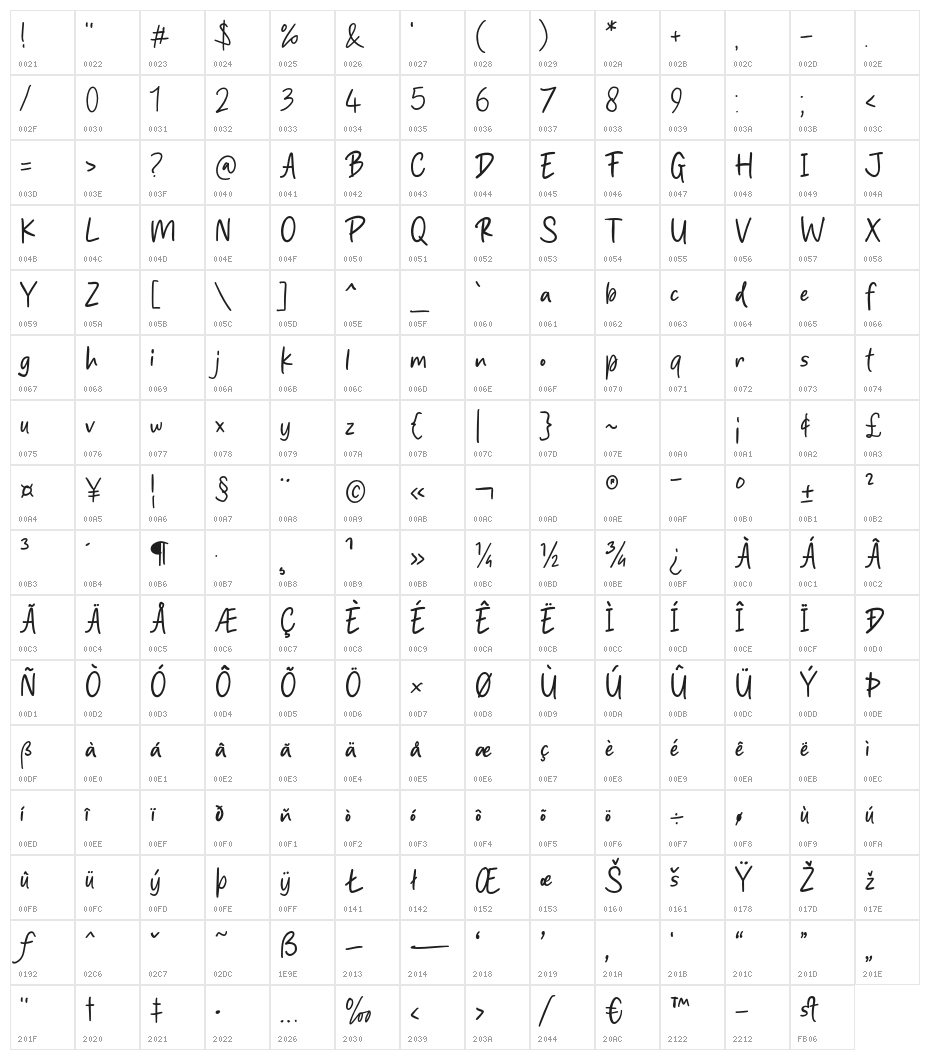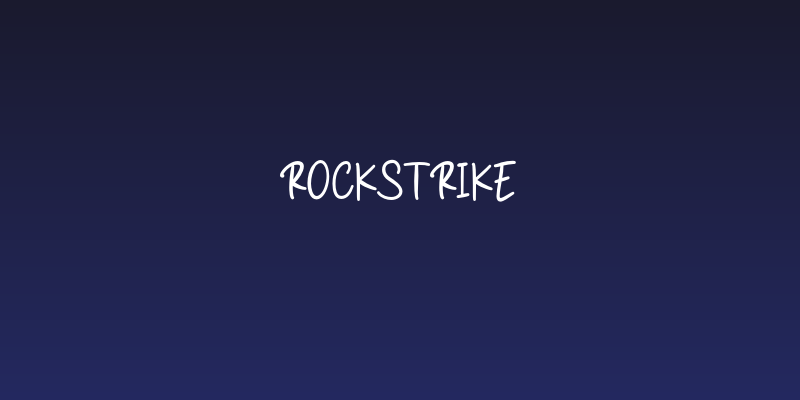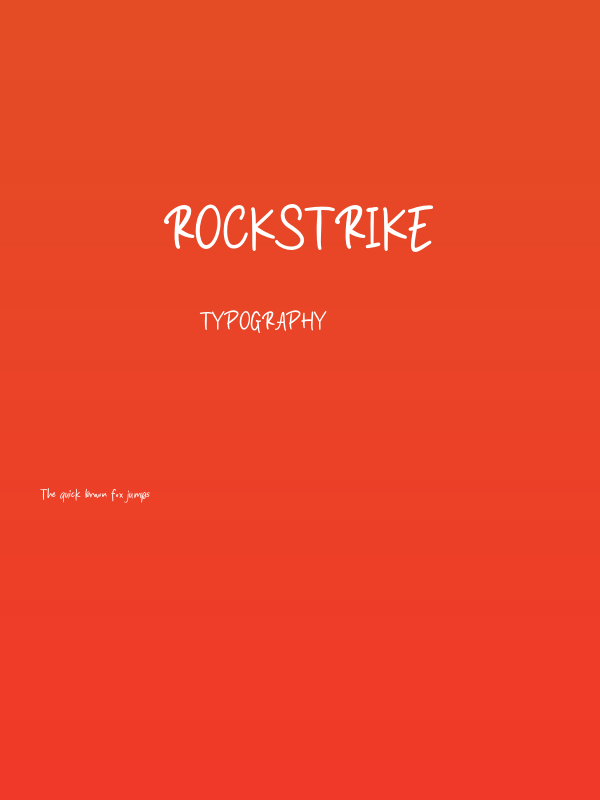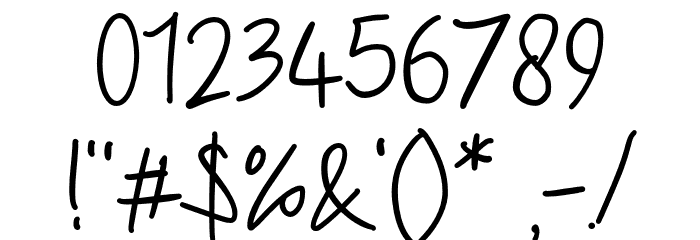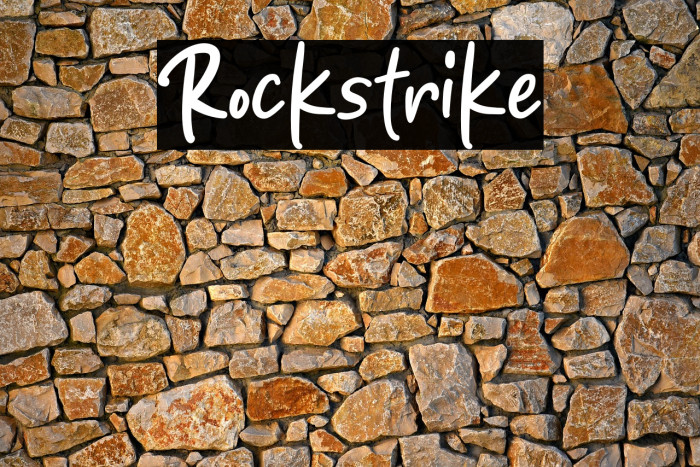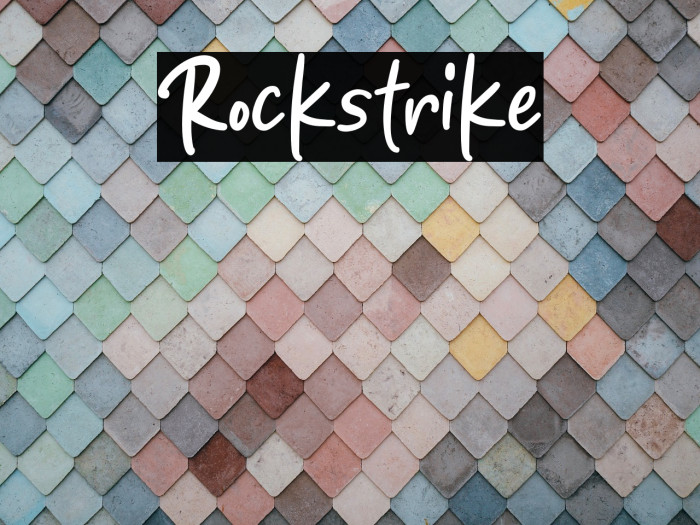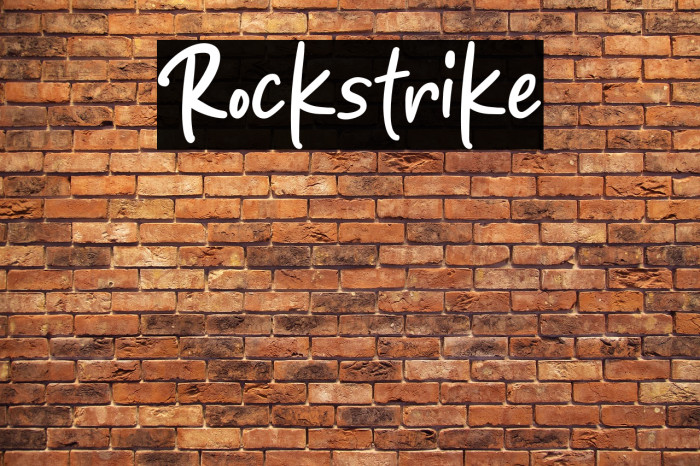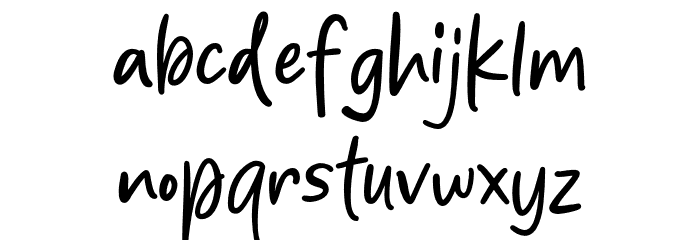
Rockstrike Font
Rockstrike Description
This font features a lively and casual handwritten style, characterized by its fluid and slightly irregular strokes. The letters have a playful and informal appearance, with varying heights and angles that add a sense of movement and personality. The uppercase letters are bold and dynamic, while the lowercase letters maintain a consistent flow, enhancing readability. The numerals and special characters are crafted with the same energetic flair, making them suitable for creative and expressive designs. This font is perfect for projects that require a personal touch or a sense of spontaneity.
| Use Case | Logos, Headlines, Informal Text |
| Proposed Projects | Ideal for greeting cards, invitations, personal branding, and creative posters. |